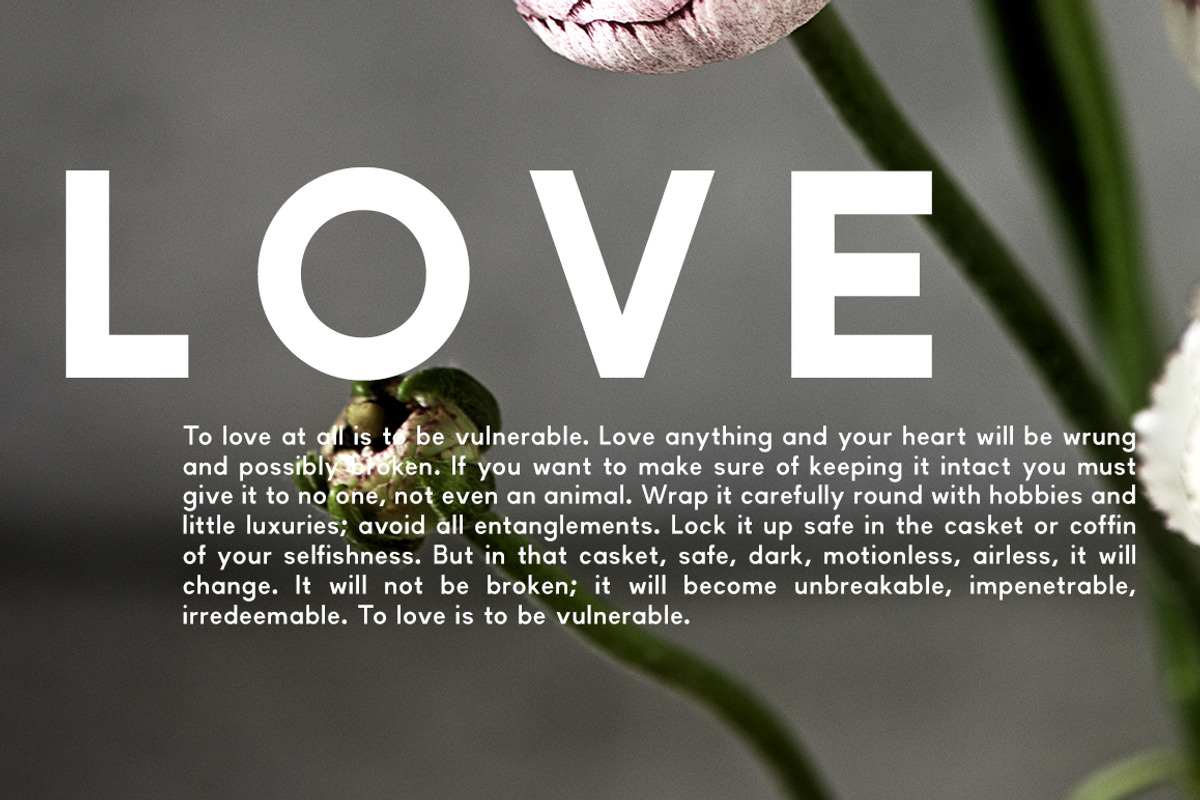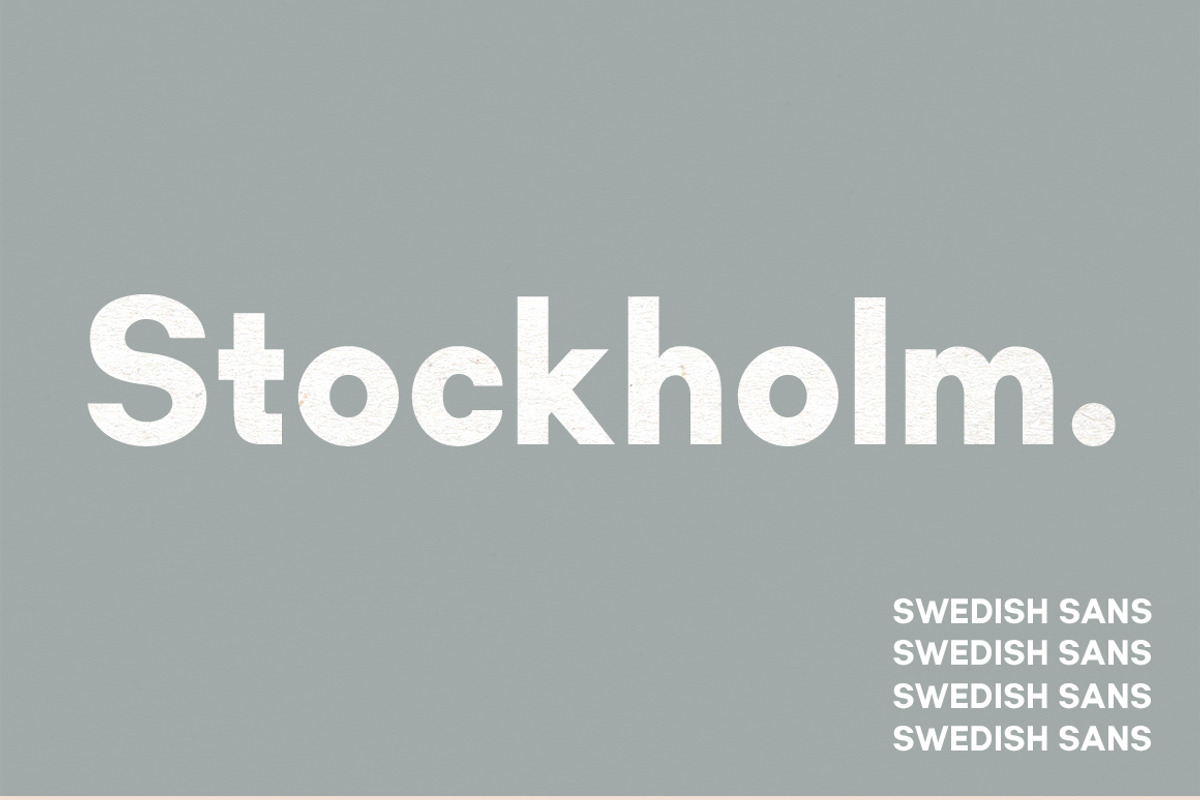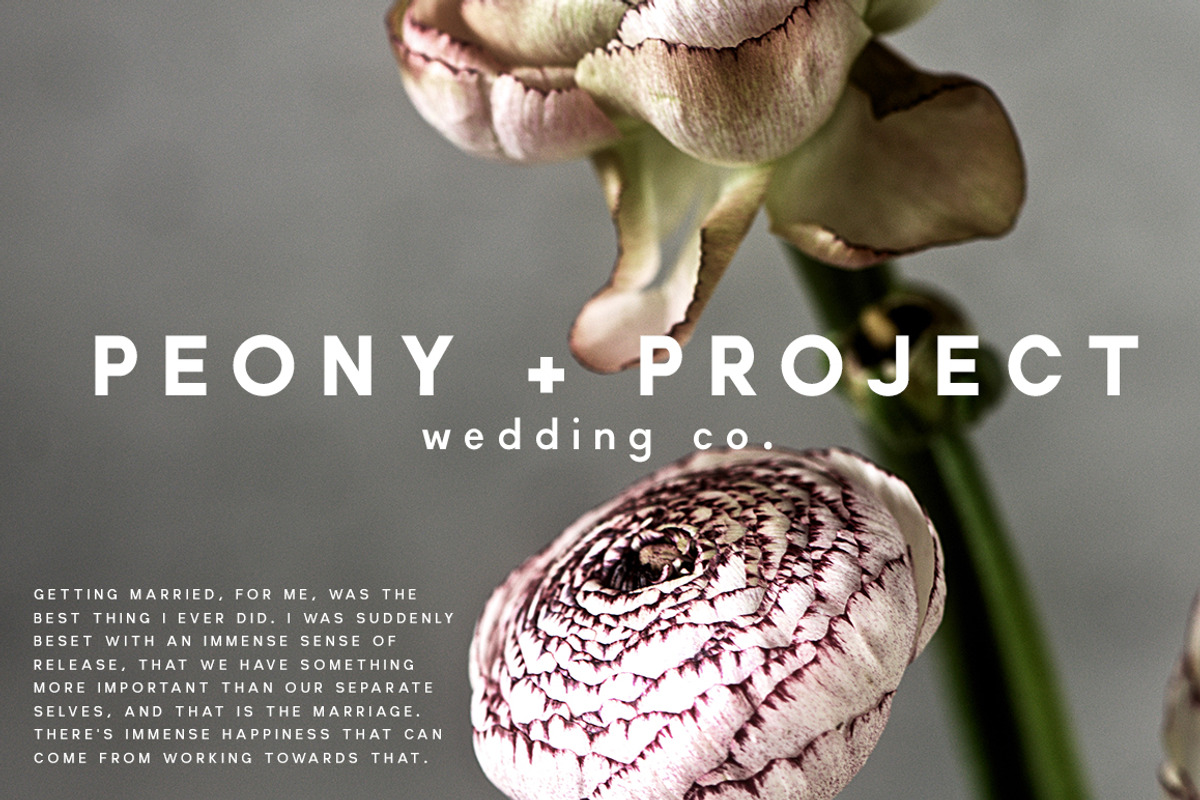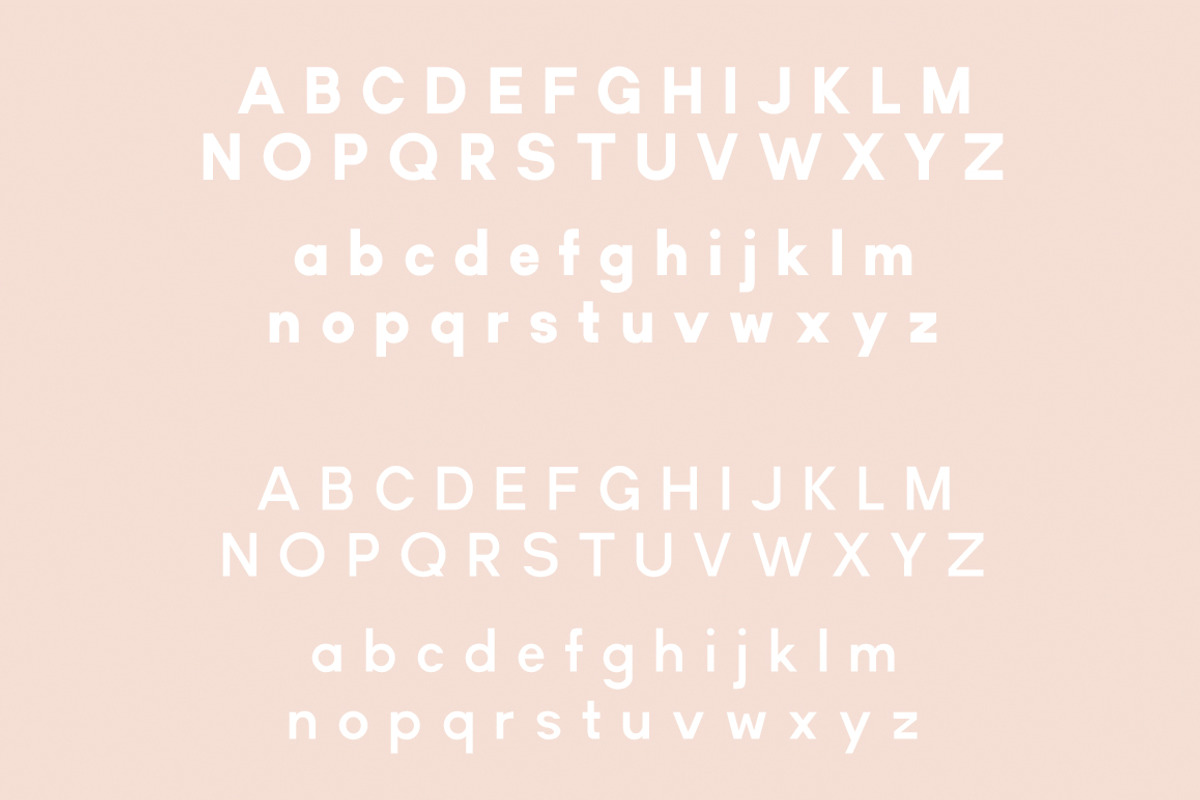
Stockholm | Two-Weight Font Set
Stockholm | Two-Weight Font Set by Jen Wagner Co is a font selected for branding, posters, packaging, typography.
- Includes Upper + lowercase English letters Numbers + punctuation Two weights (Regular + Bold) Foreign language support Show More
- With a full suite of uppercase and lowercase letters, Stockholm can be used in many style contexts and design environments.
Stockholm | Two-Weight Font Set by Jen Wagner Co fits naturally into Branding, posters, packaging, typography.